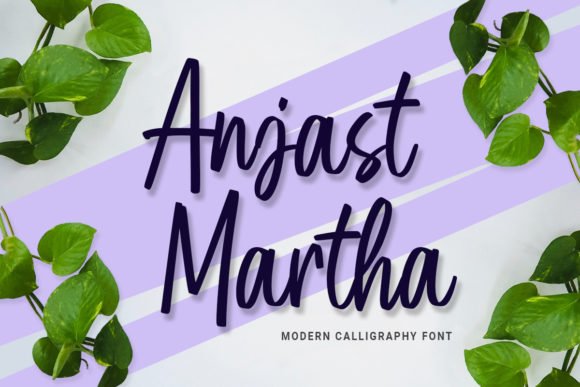
The Perfect Touch of Simplicity in Design
As a designer, there’s nothing quite like the feeling of landing on the perfect font to elevate a project. The hours of searching, the endless scrolling through typography options, and the excitement of finally finding “the one” – it’s a moment of pure joy. And for those who have experienced it, we’re sure you’ll agree that the right font can make all the difference in bringing a design to life.
Enter the Anjast Martha Font, a modern calligraphy font that’s perfect for adding a touch of simplicity to your already amazing designs. With its clean lines and elegant script, Anjast Martha Font is a versatile choice that’s sure to add a professional touch to any project. Whether you’re a seasoned designer or just starting out, this font is a valuable addition to your toolkit – and with its limitless design possibilities, the options are truly endless.
Anjast Martha Font Key Features
Anjast Martha Font Review
Overall, I think Anjast Martha is a solid font, but it has some areas where it could improve. Let’s dive into the details.
- The font’s unique blend of script and serif elements creates an interesting aesthetic.
- It’s versatile and can be used for both formal and informal projects.
- The font’s curves and lines are well-balanced, making it easy on the eyes.
- The font’s x-height is a bit inconsistent, which can make it difficult to read at certain sizes.
- Some of the characters, such as the ‘a’ and ‘g’, have a slightly awkward shape that can be jarring.
- The font’s italics are a bit too swashy, which can make it hard to read in certain contexts.
Anjast Martha is a good choice for projects where you want a unique, eye-catching font. However, it may not be the best option for projects where readability is paramount. With some adjustments and refinements, this font has the potential to be truly great.
Getting the Most Out of the Anjast Martha Font
To get the most out of the Anjast Martha Font, try the following:
- Pair the font with complementary colors to enhance its aesthetic appeal.
- Use the font in a variety of contexts, such as headings, subheadings, and body text.
The Anjast Martha Font is well-suited for:
- Designing invitations and event materials.
- Creating branding materials, such as logos and business cards.
- Developing digital products, such as ebooks and presentations.
Alternatives to Anjast Martha Font for Designers
The Great Vibes Font is a modern script font that offers a unique and elegant feel. It’s ideal for use in titles, headings, and quotes where a touch of sophistication is needed. Compared to Anjast Martha Font, Great Vibes Font has a more refined and polished appearance, making it suitable for formal and professional designs.
The Carolyna Pro Font is a high-end script font that features a luxurious and elegant feel. It’s perfect for use in branding, packaging, and advertising where a high-end look is desired. Compared to Anjast Martha Font, Carolyna Pro Font has a more premium and sophisticated appearance, making it ideal for luxury brands and high-end designs.
The Alex Brush Font is a elegant script font that offers a touch of sophistication and elegance. It’s ideal for use in titles, headings, and quotes where a refined and polished appearance is needed. Compared to Anjast Martha Font, Alex Brush Font has a more classic and timeless feel, making it suitable for traditional and formal designs.
The Ostrich Sans Font is a modern sans-serif font that offers a clean and minimalist feel. It’s perfect for use in body text, titles, and headings where a simple and easy-to-read appearance is needed. Compared to Anjast Martha Font, Ostrich Sans Font has a more straightforward and modern appearance, making it ideal for digital designs and modern brands.